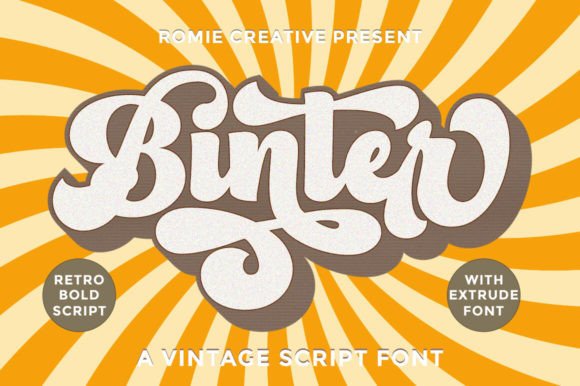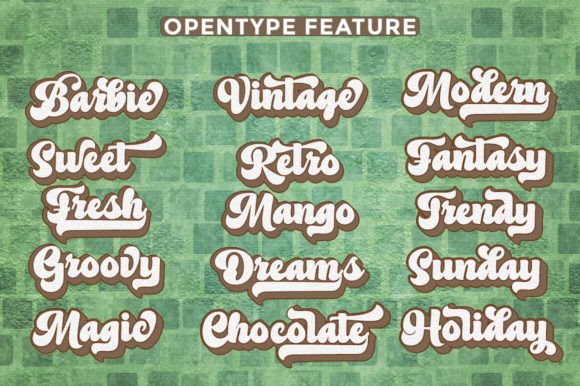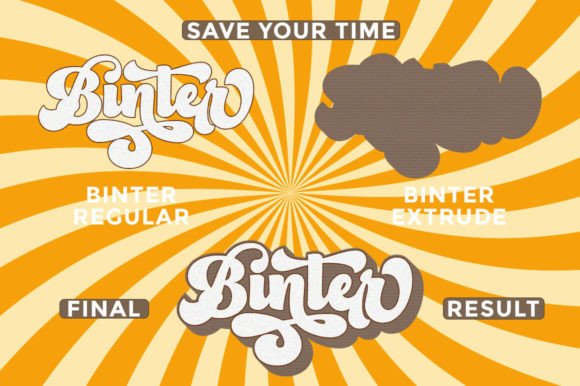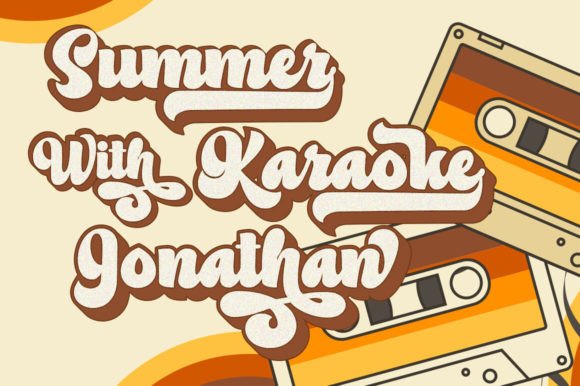
Binter Font: Groovy Retro Script for Eye-Catching Headlines & Logos
About the Binter Font
Let us introduce you to Binter Font, where timeless design meets modern craftsmanship. Introducing Binter. A bold retro script that will take you back to the 60s. This typeface has an extrude version so you can create a retro effect font easily. This font is very suitable for the application, especially on logos, and various other formal forms such as invitations, labels, logos, magazines, books, greeting/wedding cards, packaging, fashion, makeup, stationery, novels, labels, or all kinds of things. advertising purposes.
Binter Font Usage Examples